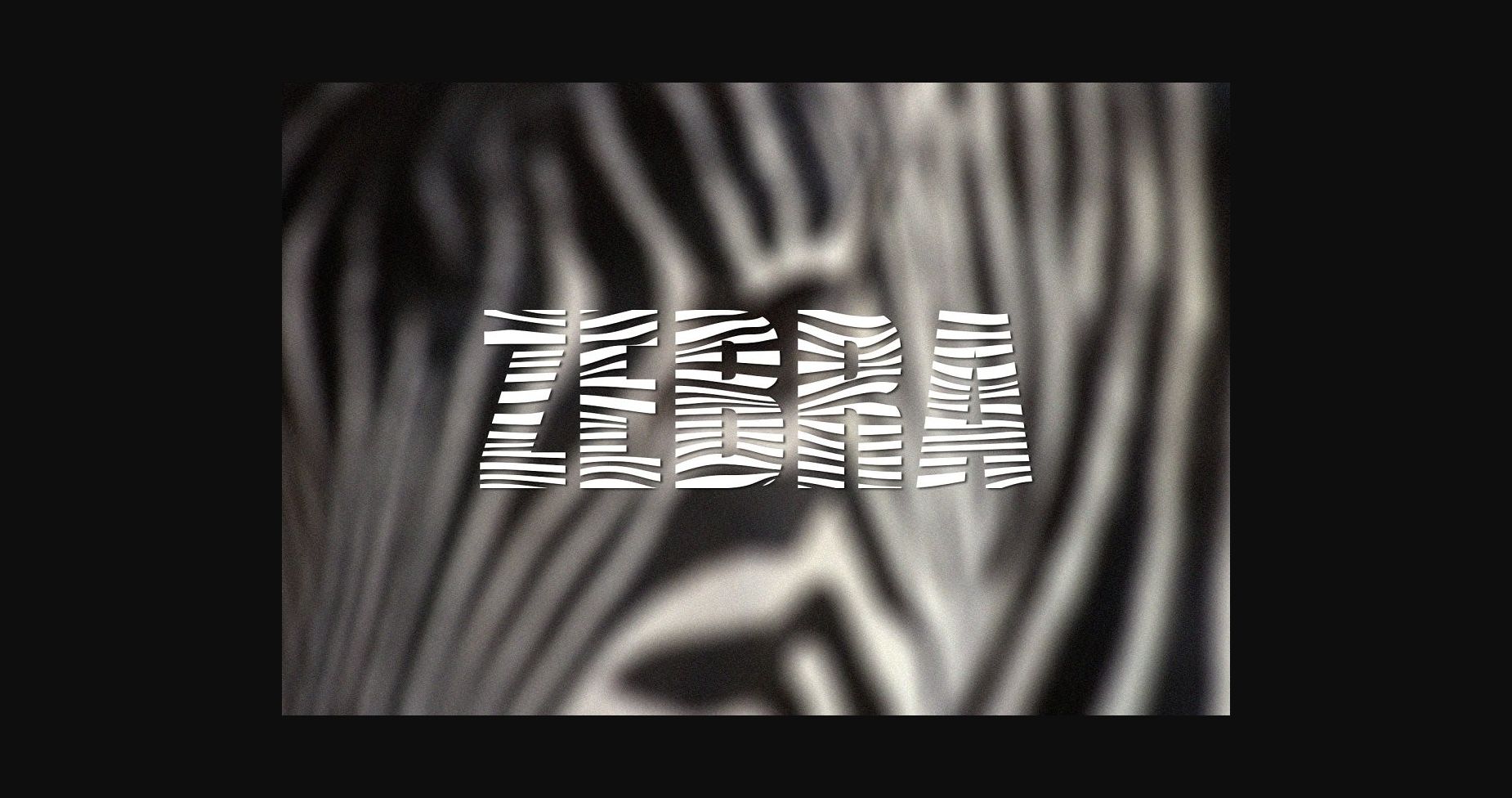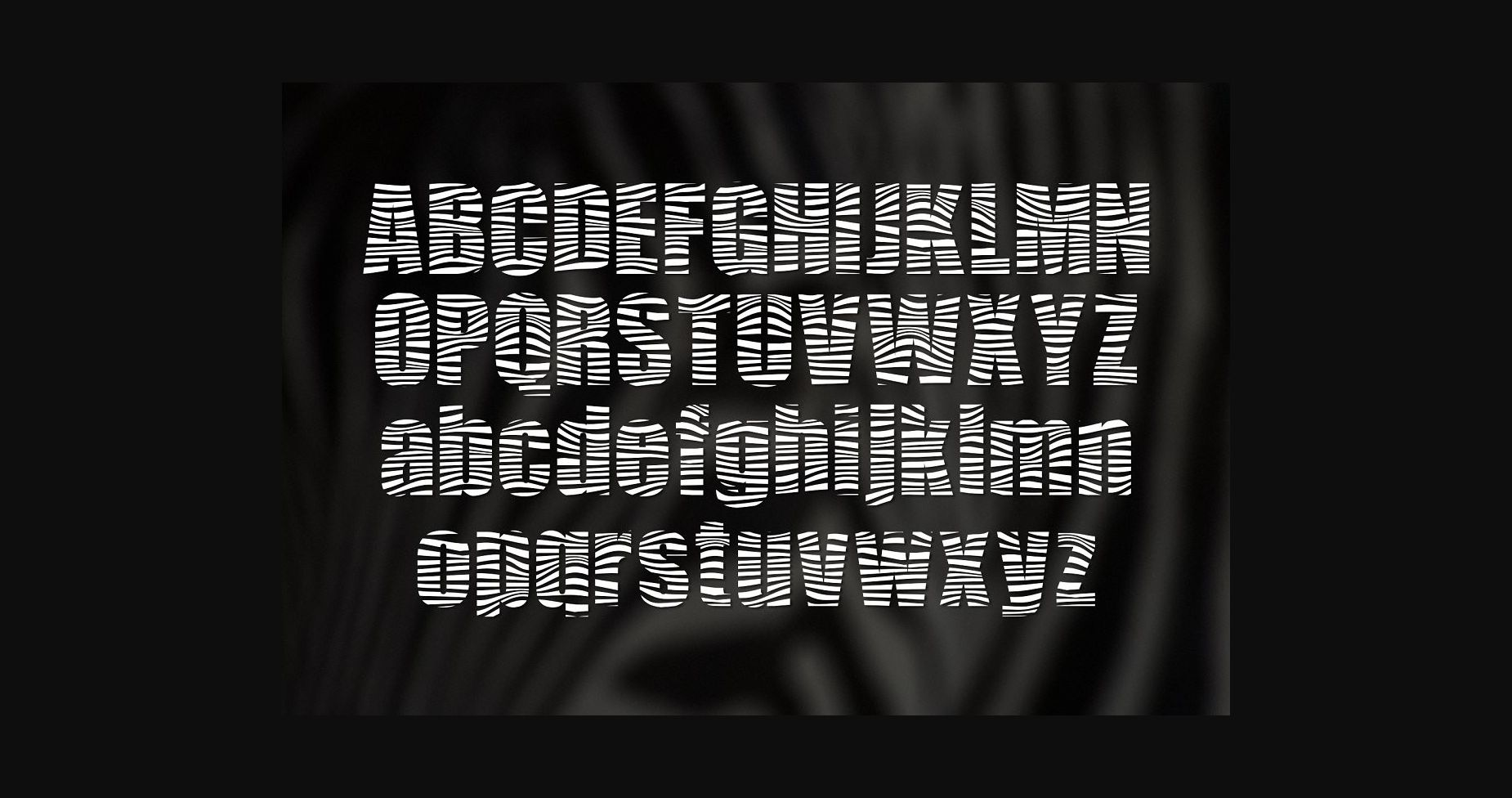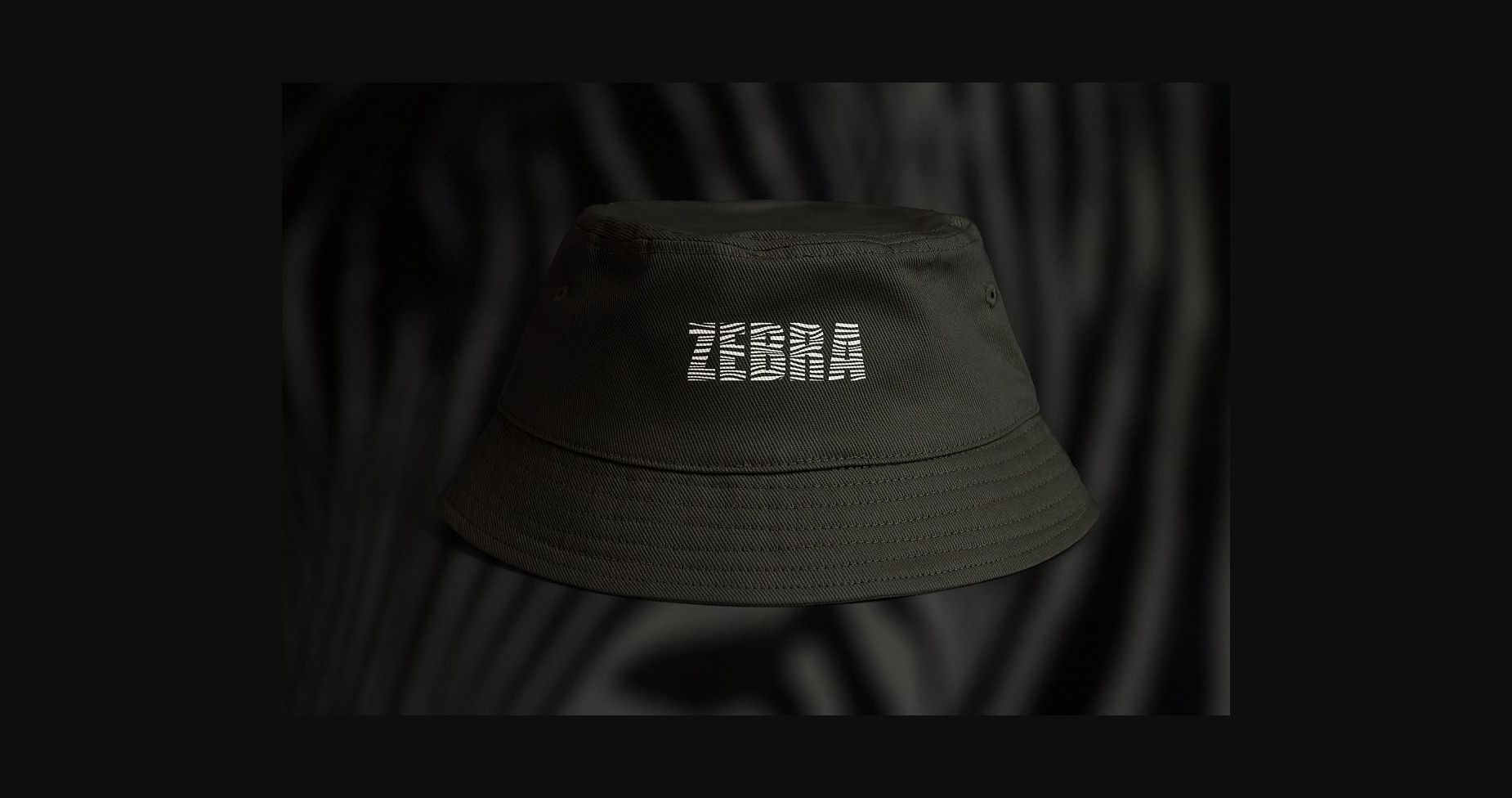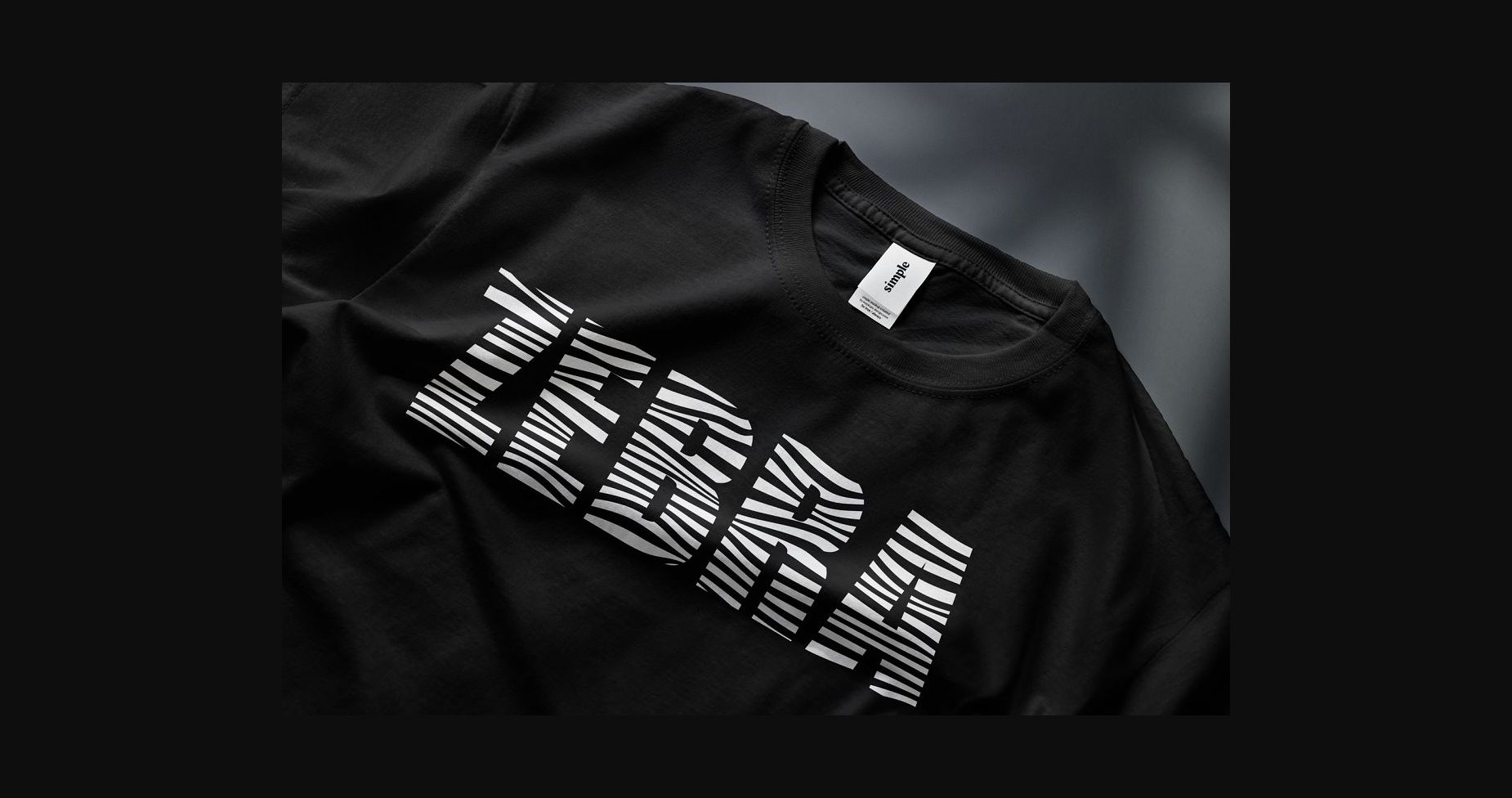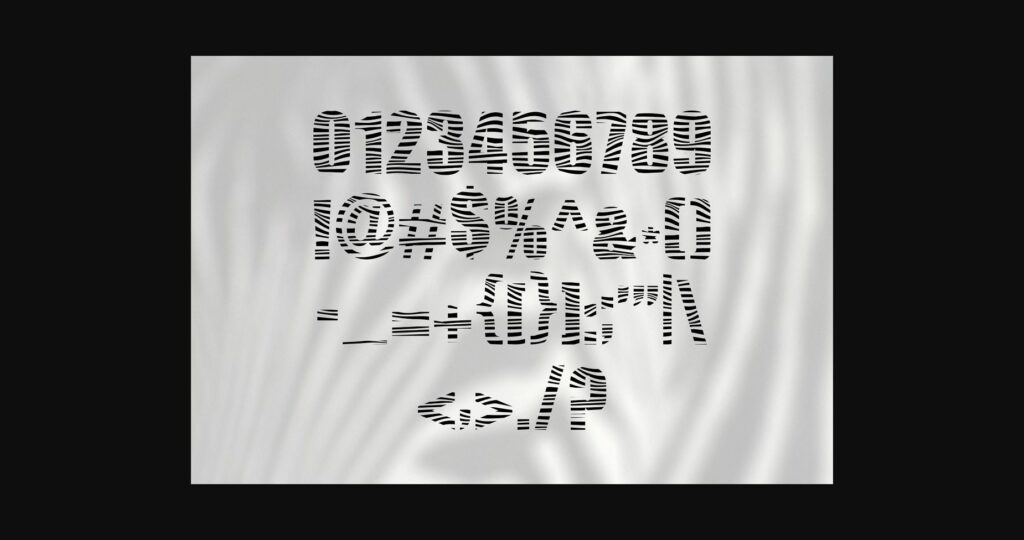
HomeSans Serif FontsZebra Font Sans Serif Fonts Zebra Font FacebookXPinterestWhatsApp 1 of 7 ... Zebra Font Poster 2... Zebra Font Poster 3... Zebra Font Poster 4... Zebra Font Poster 5... Zebra Font Poster 6... Zebra Font Poster 7... About Zebra Font Zebra is a modern and attractive sans-serif font that brings a unique zebra style with clean lines and sharp edges. Perfect for a modern feel, this font can be used for both print and digital media. DOWNLOAD NOW People also explored Pool Party Font Von Brush Font Thursdoo Christine Font Invitation Script Dear Santa Font The Sewing Font Ancient Font Dreaming Font 444 0 TagsZebraZebra Font Previous articleTypeday FontNext articleMasyte Font LEAVE A REPLY Cancel reply Comment: Please enter your comment! Name:* Please enter your name here Email:* You have entered an incorrect email address! Please enter your email address here Website: Save my name, email, and website in this browser for the next time I comment. Personal Use Free Kredit Personal Use Free Read more about this font Astercla Personal Use Free Read more about this font Amelline Personal Use Free Read more about this font Ashay Personal Use Free Read more about this font BLOG Fonts That Capture the Spirit of New York City New York City is more than just a place—it’s an experience, a rhythm, a visual language... Best Fonts for T-Shirt Design – Top 2025 Picks How to Cut Any Font on Cricut: Convert a Font to SVG (Free) Top 10 Handwritten Fonts That Elevate Your Designs